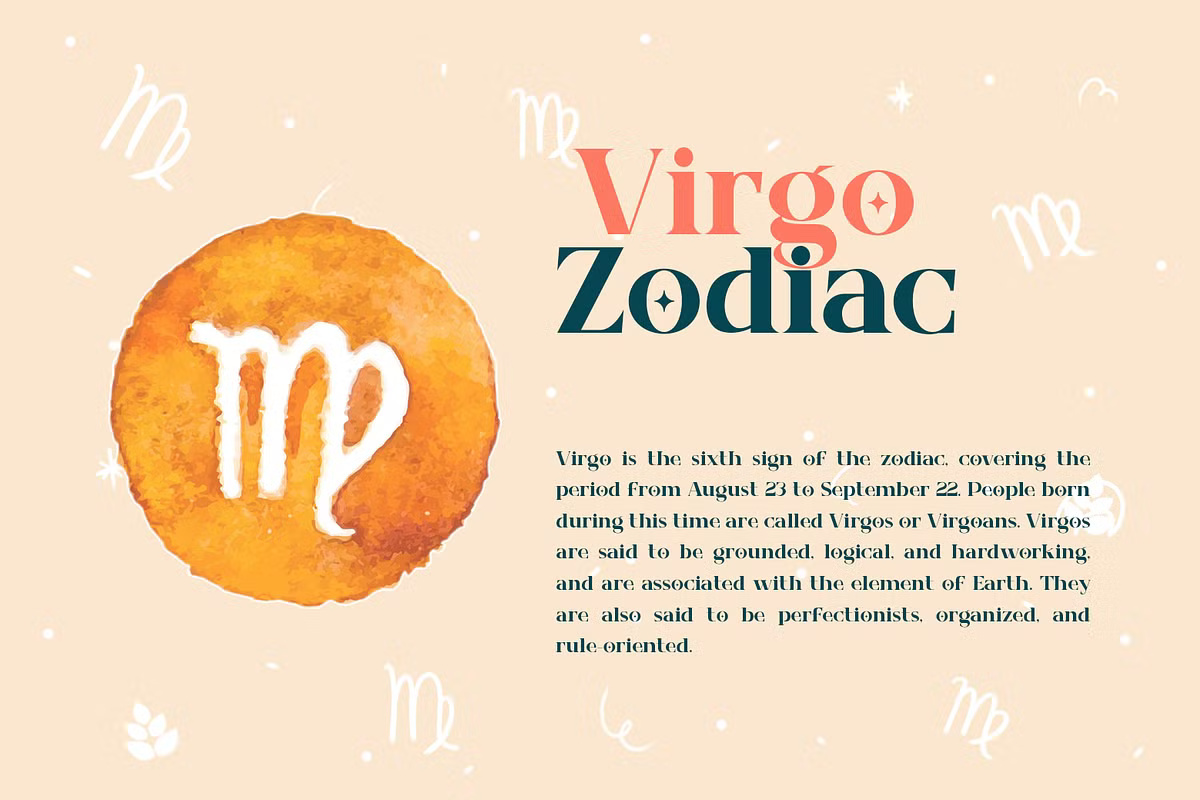
Virgo Delight Font
Virgo Delight is an elegant serif typeface that brings a touch of sophistication to any design. Perfectly suited for a wide range of creative projects—including posters, logos, magazines, books, and banners—this font adds a refined aesthetic to your work. Its versatility makes it an excellent choice for countless applications, allowing you to experiment and bring your ideas to life with style.
Virgo Delight Serif Font